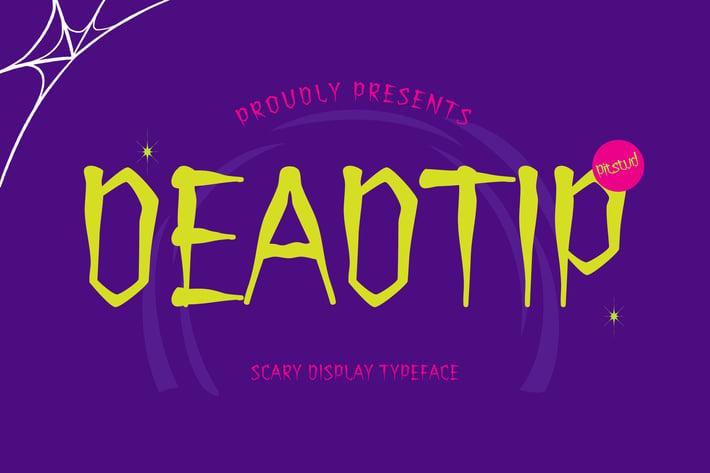
Deadtip - Horror Mistery Metal Font
Step into the eerie world of shadows and secrets with this spine-chilling Deadtip - Horror Mistery Metal Font. Designed to evoke a sense of suspense, it combines jagged edges, uneven strokes, and haunting letterforms to create a truly hair-raising atmosphere.
Perfect for Halloween-themed projects, spooky invitations, thriller posters, haunted house events, or chilling movie titles, this font will add a dramatic and sinister vibe to any design. Its versatile style allows for both darkly playful and deeply unsettling aesthetics.